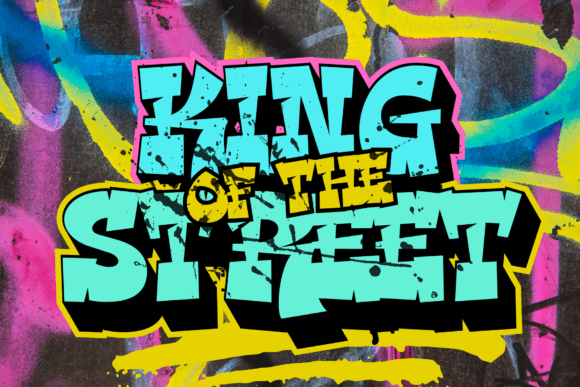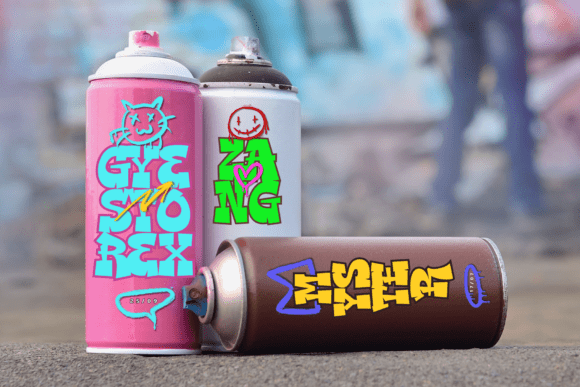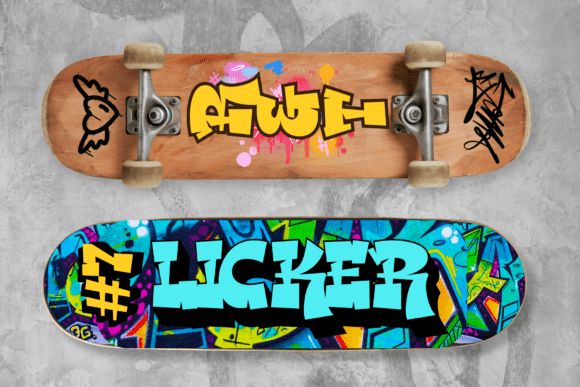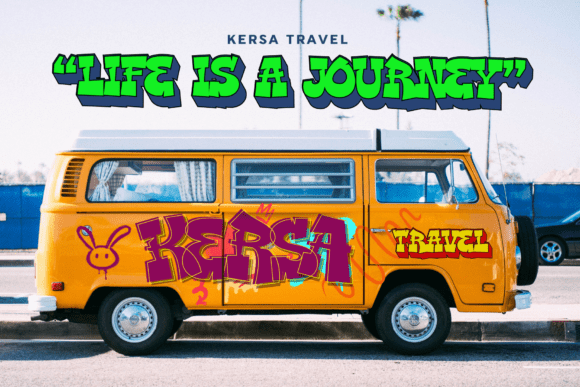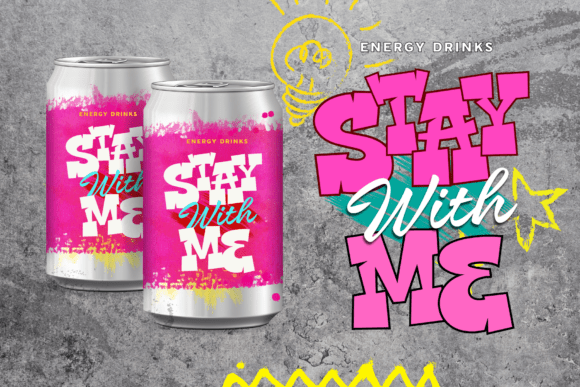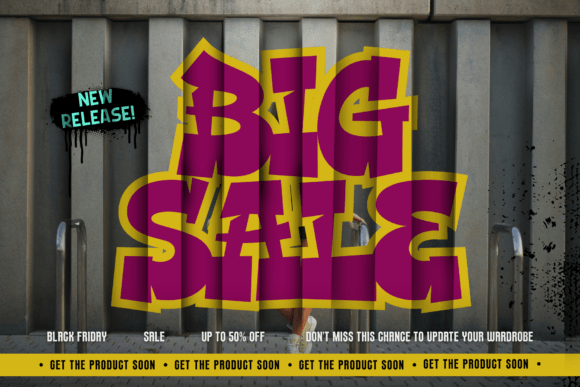
Unlock the Power of Street Art in Your Designs
Imagine strolling through a bustling city, surrounded by vibrant murals and graffiti that seem to pulse with energy. That’s the moment when creativity strikes, and the world becomes your canvas. As designers, we’re always on the lookout for fonts that capture the essence of urban culture and bring it to life in our work. That’s where the Bold Blast Font comes in – a game-changing typeface that embodies the raw energy and dynamic flair of city street art.
Perfect for designers looking to infuse their projects with a unique, expressive edge, the Bold Blast Font is an ideal choice for posters, apparel, and any design that requires a bold, urban vibe. Its distinctive characters are sure to turn heads and leave a lasting impression, making it a valuable addition to any designer’s toolkit.
Bold Blast Font Key Features
- Unique Characteristics: Bold Blast Font features a unique, energetic design with bold lines and dynamic curves, making it perfect for use in advertising, sports, and action-oriented contexts.
Review of Bold Blast Font
Overall, I have mixed feelings about the Bold Blast Font. While it has some great qualities, it also falls short in certain areas.
- High-energy feel: Bold Blast Font is perfect for projects that require an energetic and bold look. It’s great for creating eye-catching headlines and titles.
- Good legibility: Despite its bold appearance, the font is still easy to read, especially in larger sizes.
- Customization options: Bold Blast Font comes with a range of styles and weights, allowing designers to customize the look to suit their needs.
- Limited versatility: While Bold Blast Font is great for bold, energetic projects, it may not be the best choice for more subtle or formal designs.
- Not ideal for small text: Due to its bold appearance, Bold Blast Font can be difficult to read in smaller sizes, making it less suitable for body text.
- No italic or script styles: Unlike other fonts, Bold Blast Font does not come with italic or script styles, which may limit its use in certain contexts.
Overall, I would say that Bold Blast Font is a solid choice for designers who want to create bold, eye-catching designs. However, it may not be the best fit for every project.
Tips for Getting the Most Out of Bold Blast Font
Use Bold Blast Font to add a bold and eye-catching touch to your designs. It’s perfect for headings, titles, and emphasis. Experiment with different font sizes and colors to create a unique look.
Bold Blast Font is ideal for:
– Headings and titles
– Emphasis and highlights
– Digital marketing materials
– Print materials